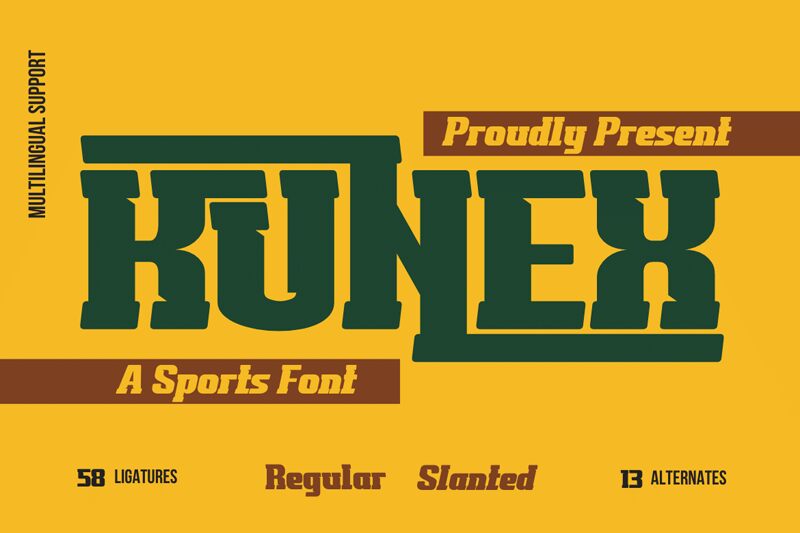
KUNEX Regular
Kunex font is a bold display typeface by Twinletter that draws inspiration from vintage design elements. Retro vibes, geometric shapes, and slab serifs are woven together to create impactful words that capture the audience’s attention. The font features strong characters with a powerful presence, combining both contemporary and faintly historic details.